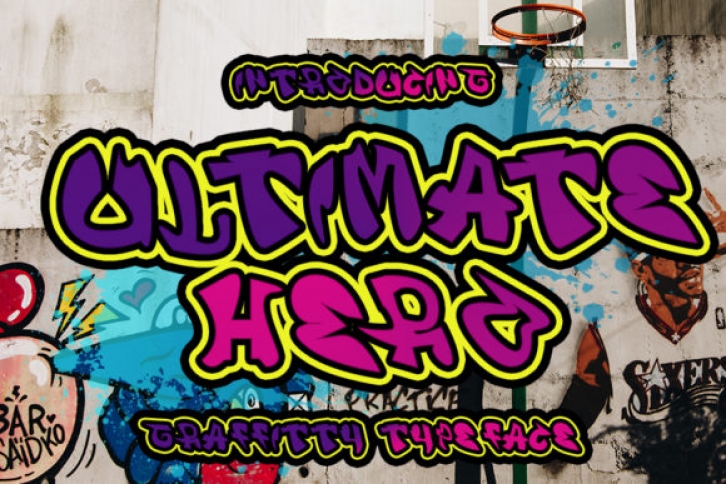
Ultimate Hero is a bold, graffiti styled display font. It can be used for various urban designs or informal ideas. Add it confidently to your projects, and you won’t be disappointed.